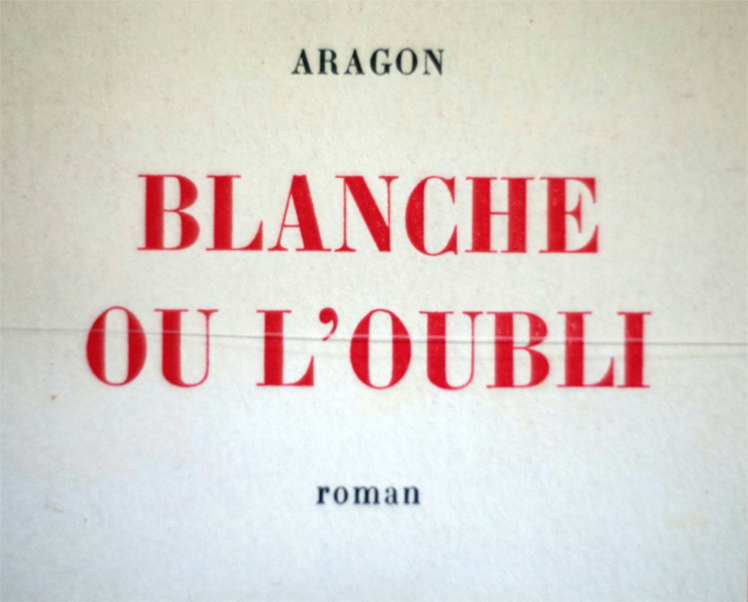
I think we’re dealing with Torino Heavy, which sadly does not seem to have survived into the digital age.
However looking at the R in ARAGON, and the red Bodoni, it might rather be a lost Condensed Bodoni with a modern G? There is are "Bodoni ZH" and a "Bodoni L" with such a G, not bold or condensed however as far as I see.
Bauer Bodoni is another contender, with some tweaking to the width.
Then again, ARAGON and roman may not be set in the exact same face as BLANCHE OU L’OUBLI.
Bodoni is a likely option for those two shorter lines, but hard to be sure given the low-res quality of your image. Archive Modern is another option, if you want something with a slightly historical patina.
Remember that there are many metal versions and sizes of Bodoni which will not match any digital font.